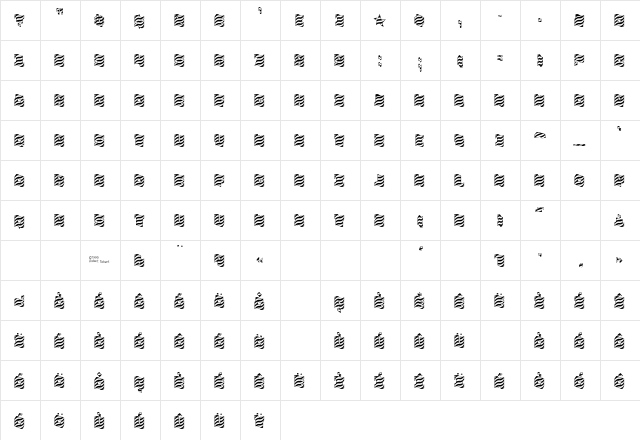
FlagDayOne Regular
Design Context for FlagDayOne Typeface
FlagDayOne is a composed and adaptable typeface that performs quietly and consistently across a wide range of design contexts.